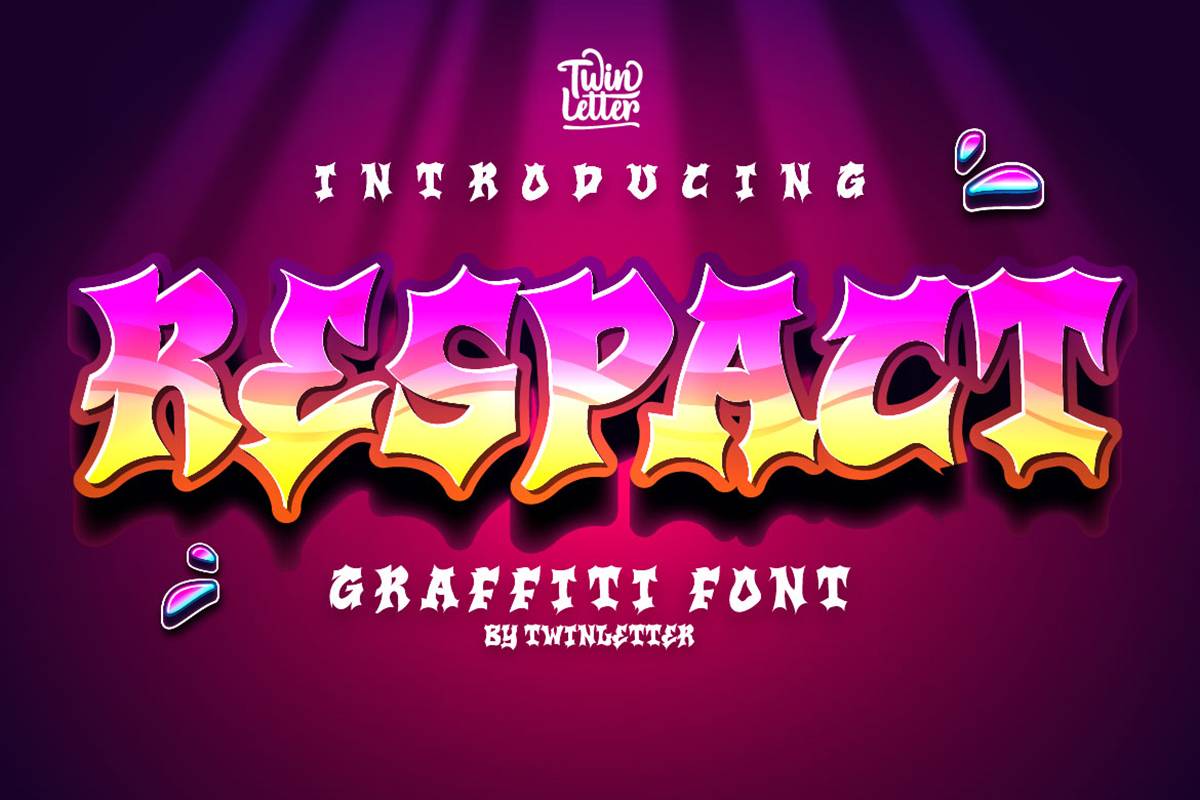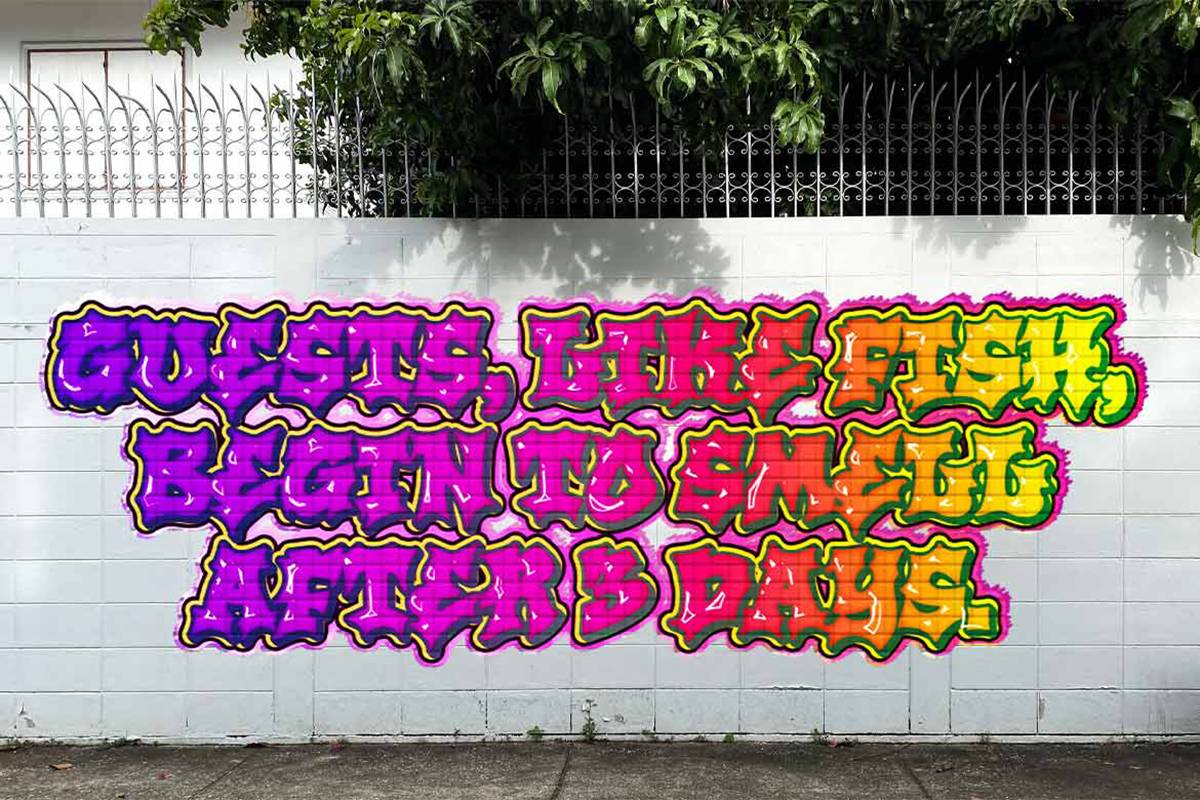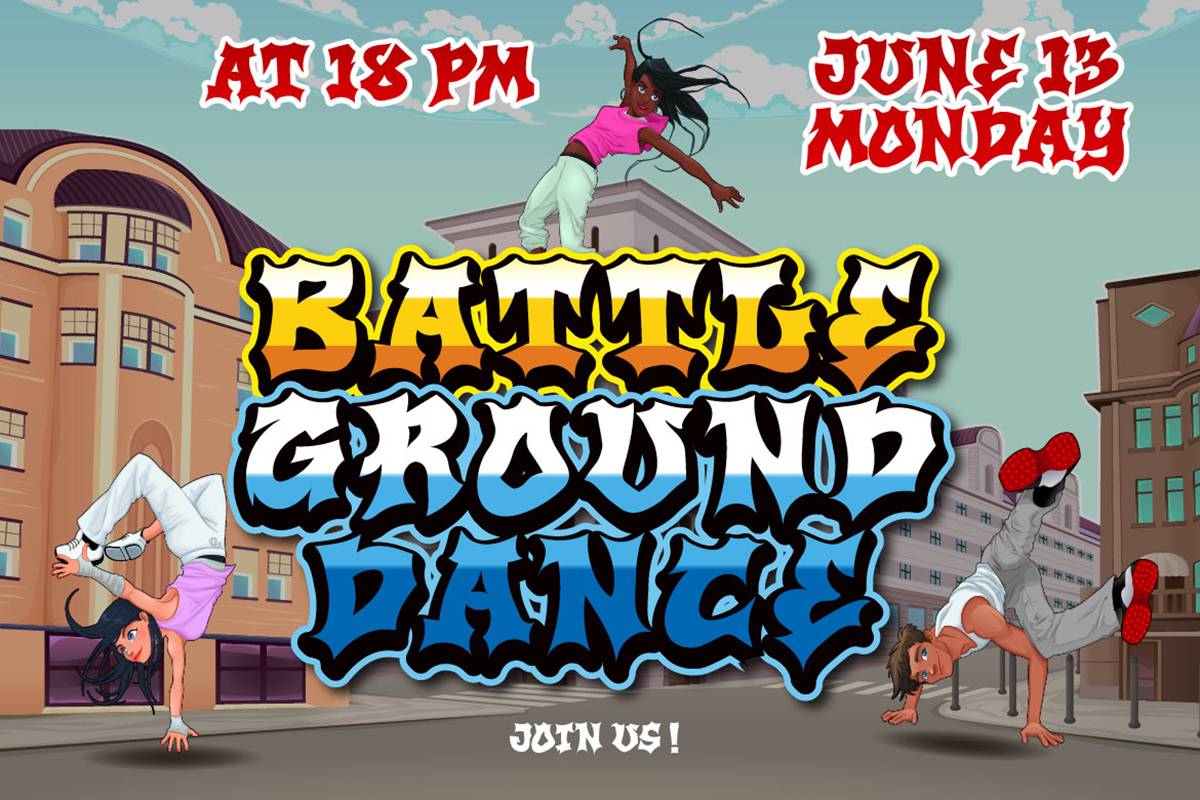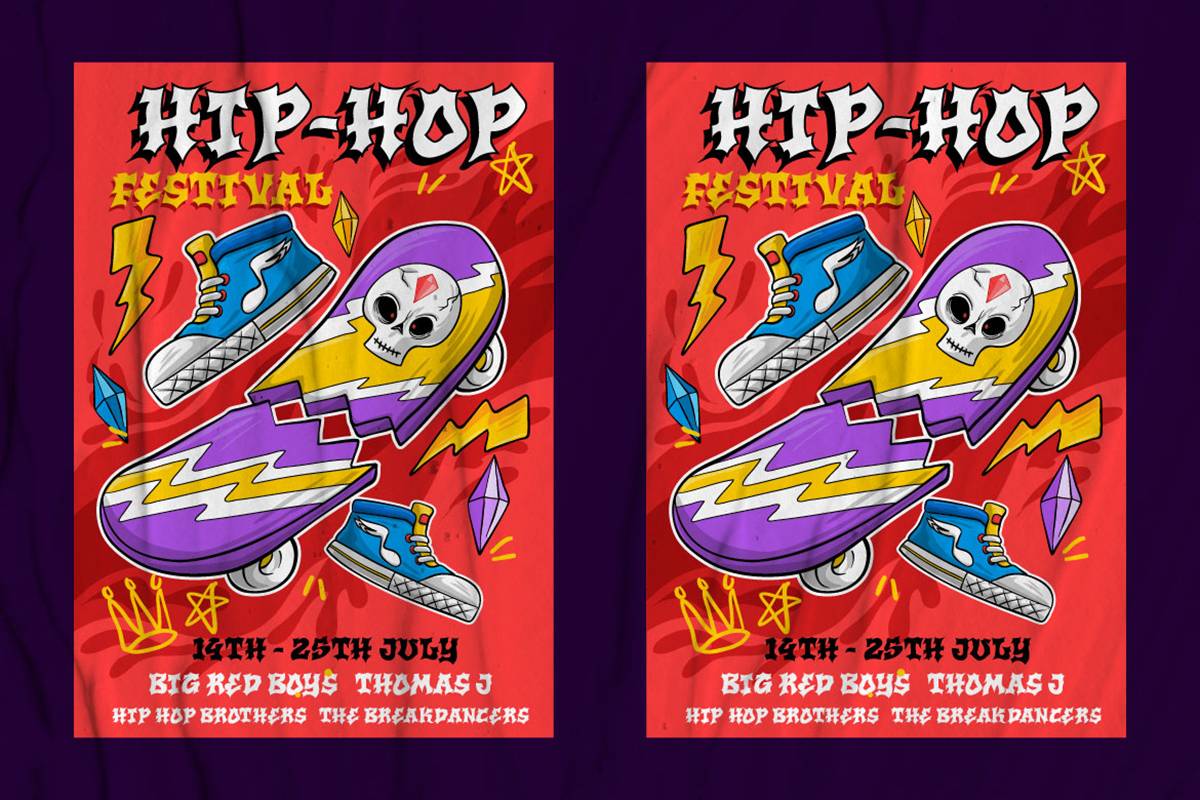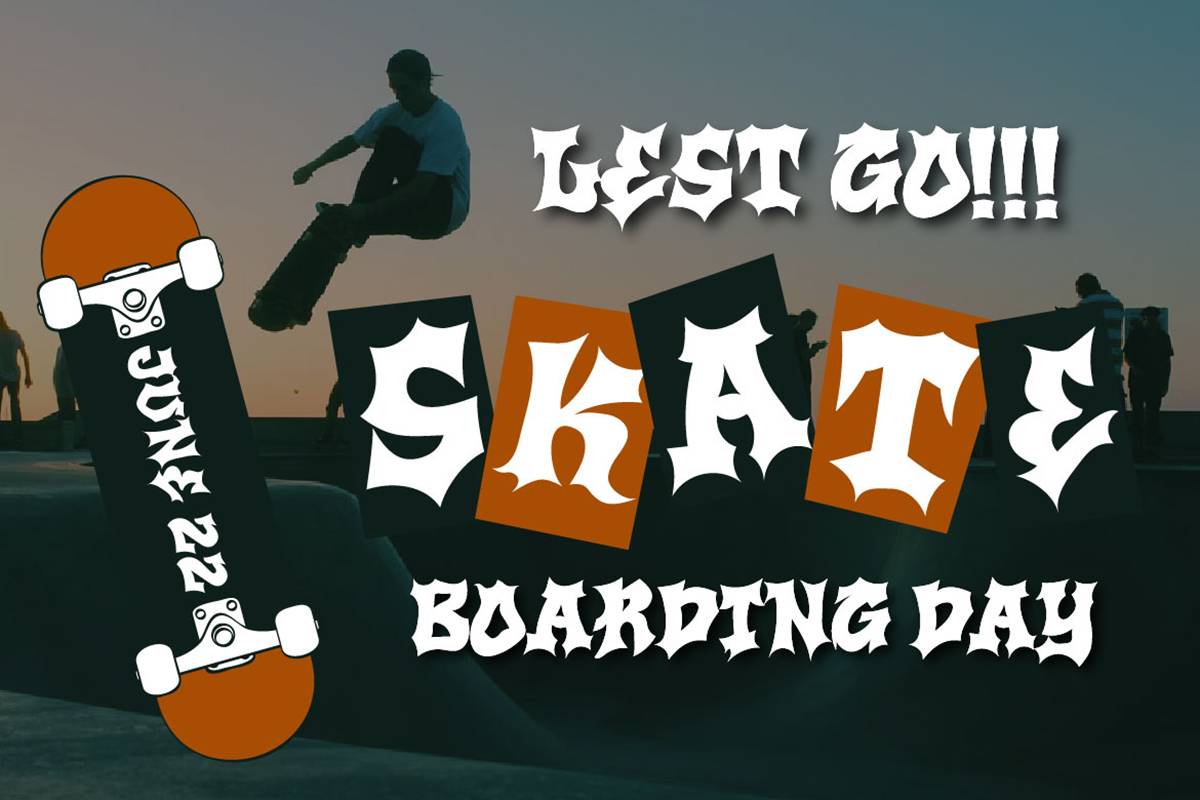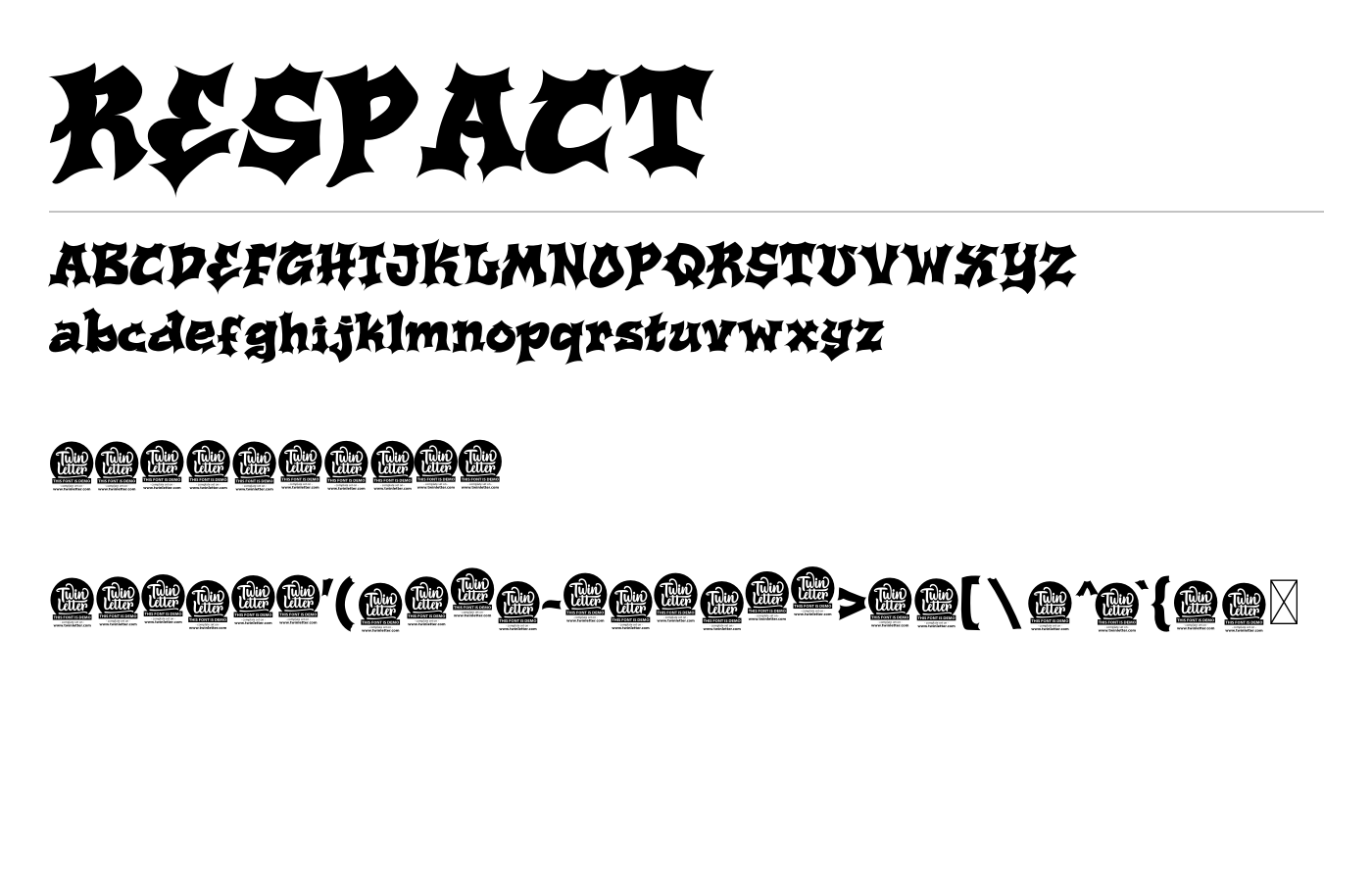
Respact is a bold, blackletter-inspired display font featuring sharp, dramatic serifs and strong contrast in stroke weight that give it a striking, gothic character. Its condensed letterforms and unique angled details make it perfect for eye-catching headlines, logos, or branding that seeks to evoke a sense of tradition with an edgy, modern twist. This font works well in designs aiming for a powerful, vintage, or rebellious aesthetic.
Respact Font
About Respact Font